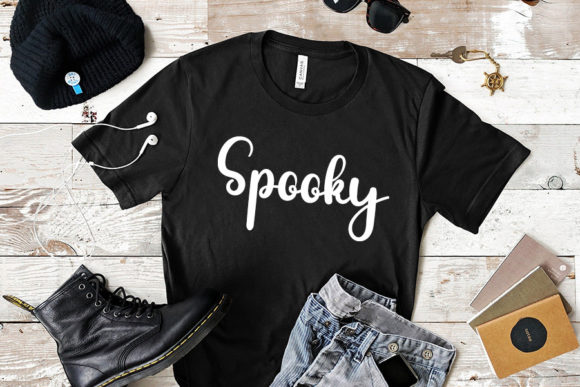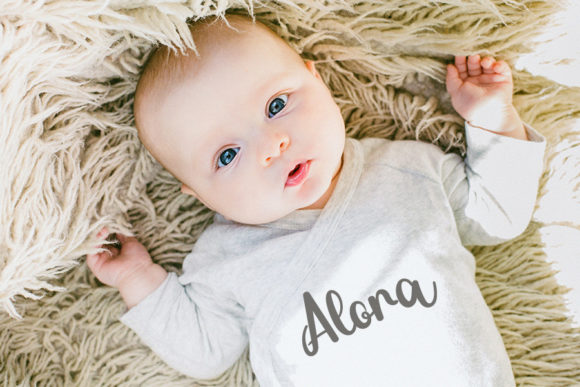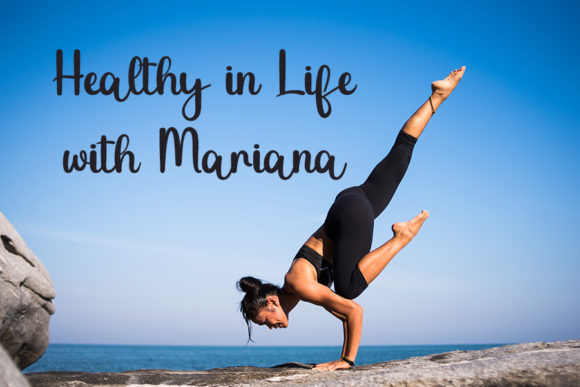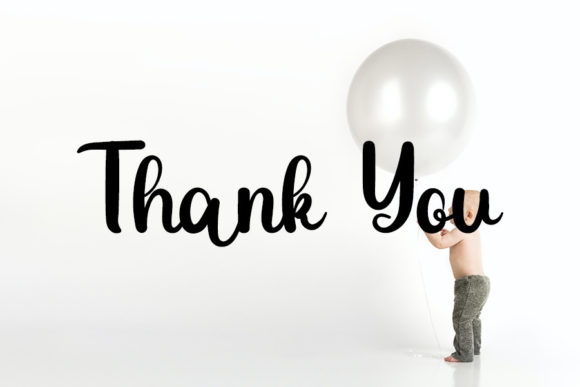
The Perfect Blend of Playfulness and Sophistication
As a designer, there’s nothing quite like that moment when a font comes together with your idea and creates something truly magical. The words flow effortlessly, the colors pop, and the message shines through. It’s a feeling that’s hard to replicate, but when it happens, it’s pure magic. And for designers looking to add a touch of whimsy and elegance to their work, there’s one font that’s sure to deliver: Aninditha Font.
With its playful, handwritten style, Aninditha Font is the perfect choice for creating eye-catching logos, branding, and quotes that stand out from the crowd. Every letter has a unique and beautiful touch, which will make your design come alive! Whether you’re working on a personal project or a client’s campaign, Aninditha Font is a valuable asset that’s sure to elevate your work to the next level.
Aninditha Font Key Features
- Font Style: Script, Informal
- Unique Characteristics: Handwritten, cursive, elegant, and decorative font suitable for invitations, wedding cards, and other special occasions
Aninditha Font Review
Overall, I’d say the Aninditha Font is a solid addition to any designer’s toolkit. Let’s dive into what works well and where it falls short.
- Unique aesthetic: The Aninditha Font has a distinct, modern feel that’s perfect for branding and editorial design.
- High-quality glyphs: The font includes a wide range of glyphs, including Latin and Cyrillic characters, making it suitable for international projects.
- Good legibility: The font is clear and easy to read, even at small font sizes.
- Limited language support: While the font includes Latin and Cyrillic characters, it’s not a Unicode font, which may limit its use in projects requiring multiple languages.
- Not ideal for large bodies of text: The font’s unique aesthetic works best in smaller amounts of text, where it can be used to add visual interest.
Overall, I think the Aninditha Font is a great choice for designers looking to add some visual flair to their projects. While it may not be the most versatile font, its unique aesthetic and high-quality glyphs make it a solid addition to any toolkit.
Aninditha Font is ideal for use in creative projects, such as:
- Business branding and marketing materials
- Artistic typography and design
For best results, use Aninditha Font in combination with bold and italic styles to add emphasis and visual interest to your text.
Comparison to Aninditha Font: While Aninditha Font is a sans-serif font, Playfair Display is a serif font. Playfair Display has a more formal and traditional feel, whereas Aninditha Font is more modern and versatile.
Comparison to Aninditha Font: Lato and Aninditha Font share similar characteristics as modern sans-serif fonts. However, Lato has a more minimalist and geometric feel, whereas Aninditha Font has a more playful and cursive touch.
Comparison to Aninditha Font: Great Vibes and Aninditha Font have a similar modern feel, but Great Vibes is a script font, whereas Aninditha Font is a sans-serif font. Great Vibes has a more fluid and handwritten appearance, whereas Aninditha Font is more geometric and structured.